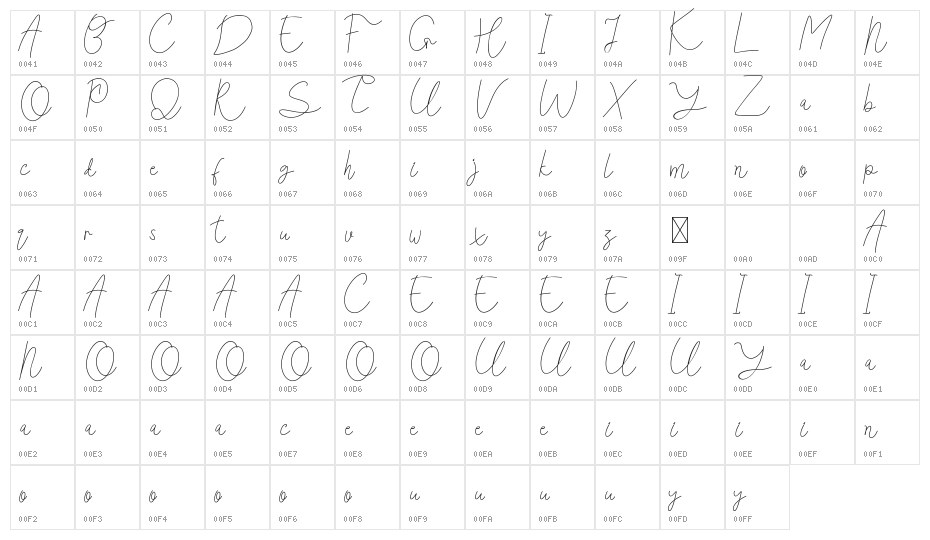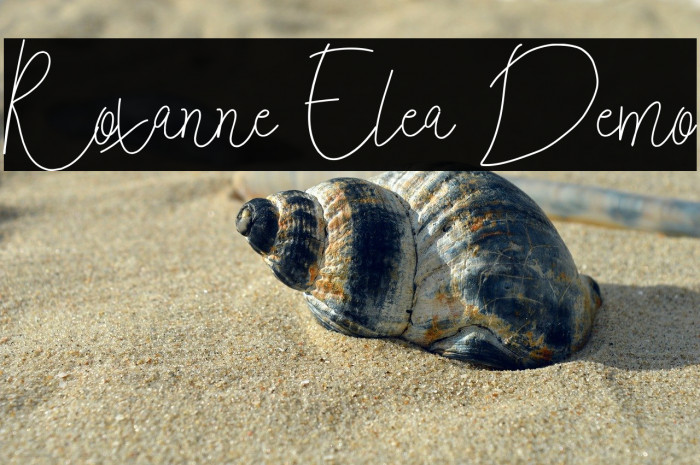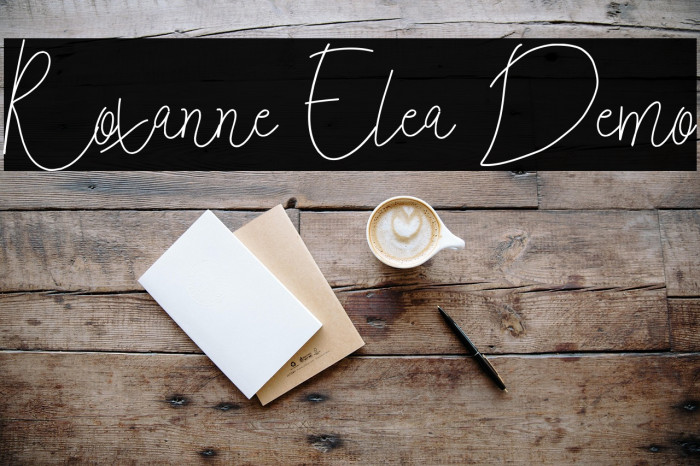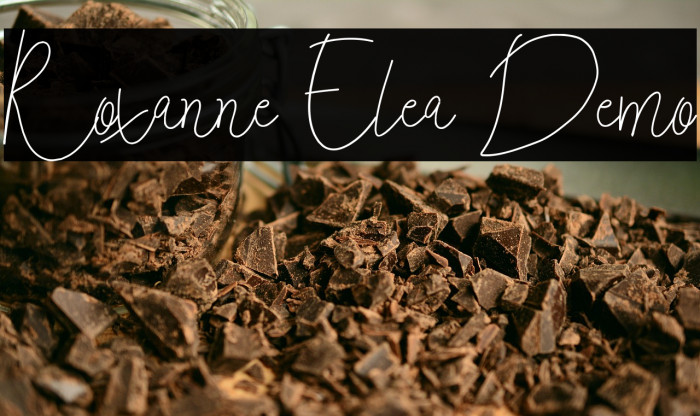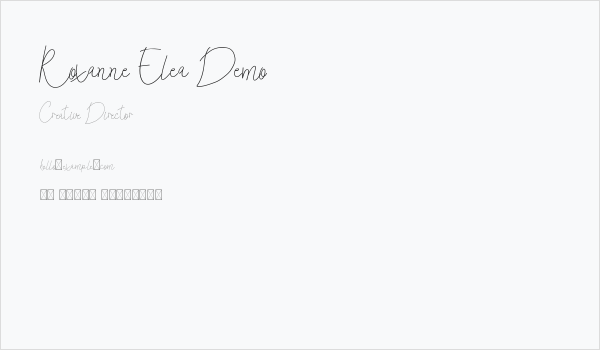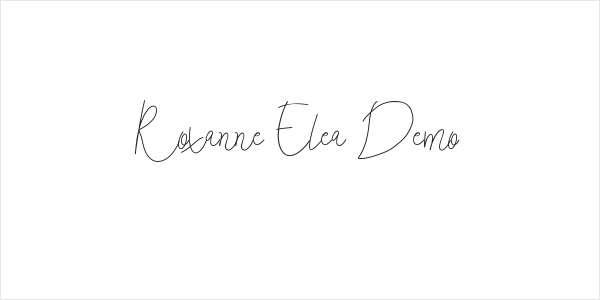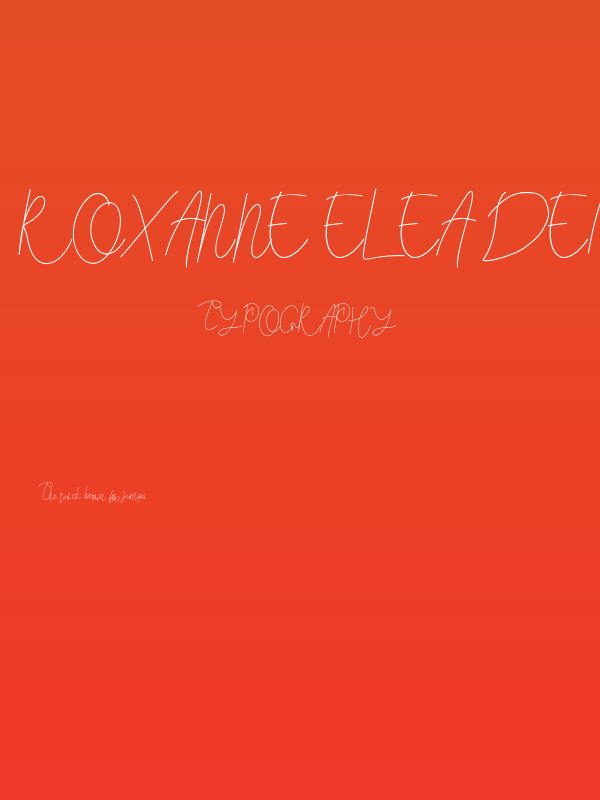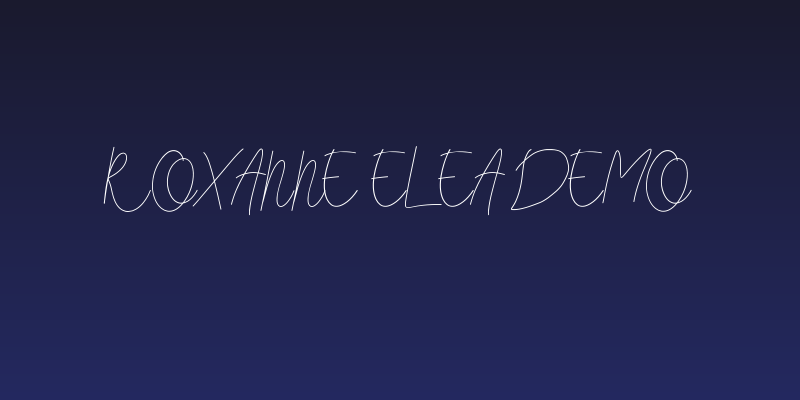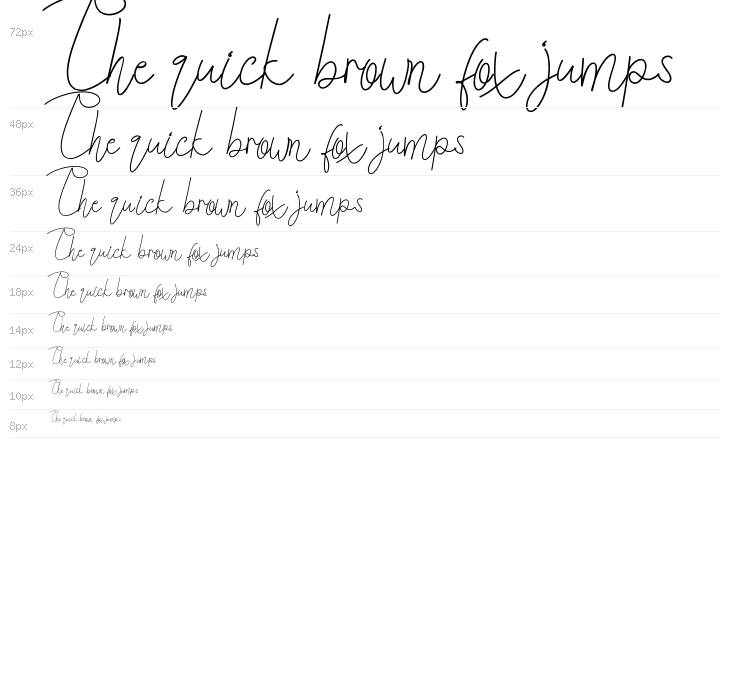
Roxanne Elea Demo Font
Roxanne Elea Demo Description
This font features a delicate and flowing script style, characterized by its thin, elegant lines and a handwritten appearance. The uppercase letters are tall and slightly slanted, giving a sense of movement and grace. The lowercase letters maintain a consistent flow, with some characters featuring loops and curves that enhance the overall fluidity. The numbers and special characters are designed to match the script's aesthetic, ensuring a cohesive look across all text. This font's airy and open design makes it suitable for projects that require a personal, artistic touch.